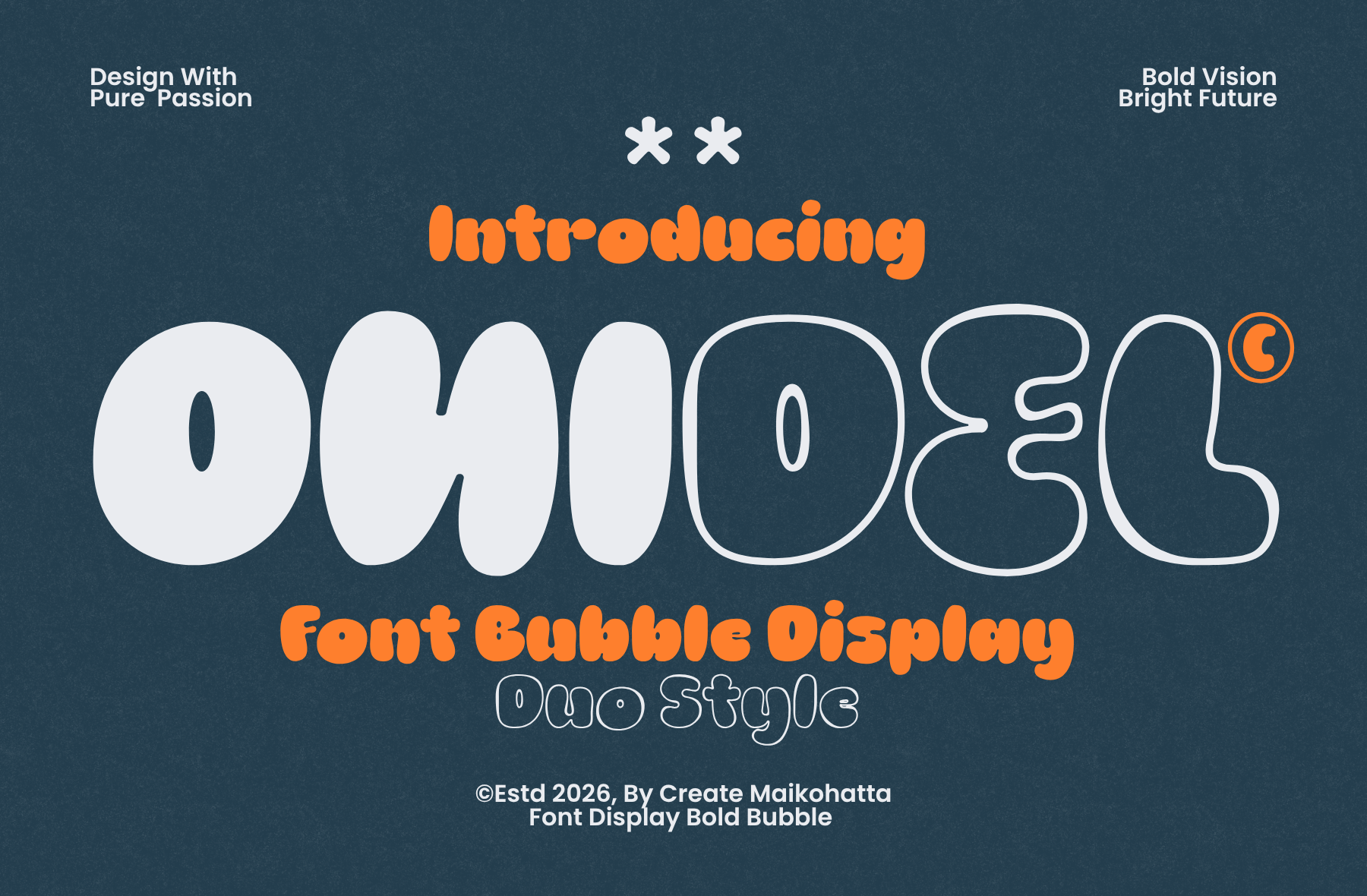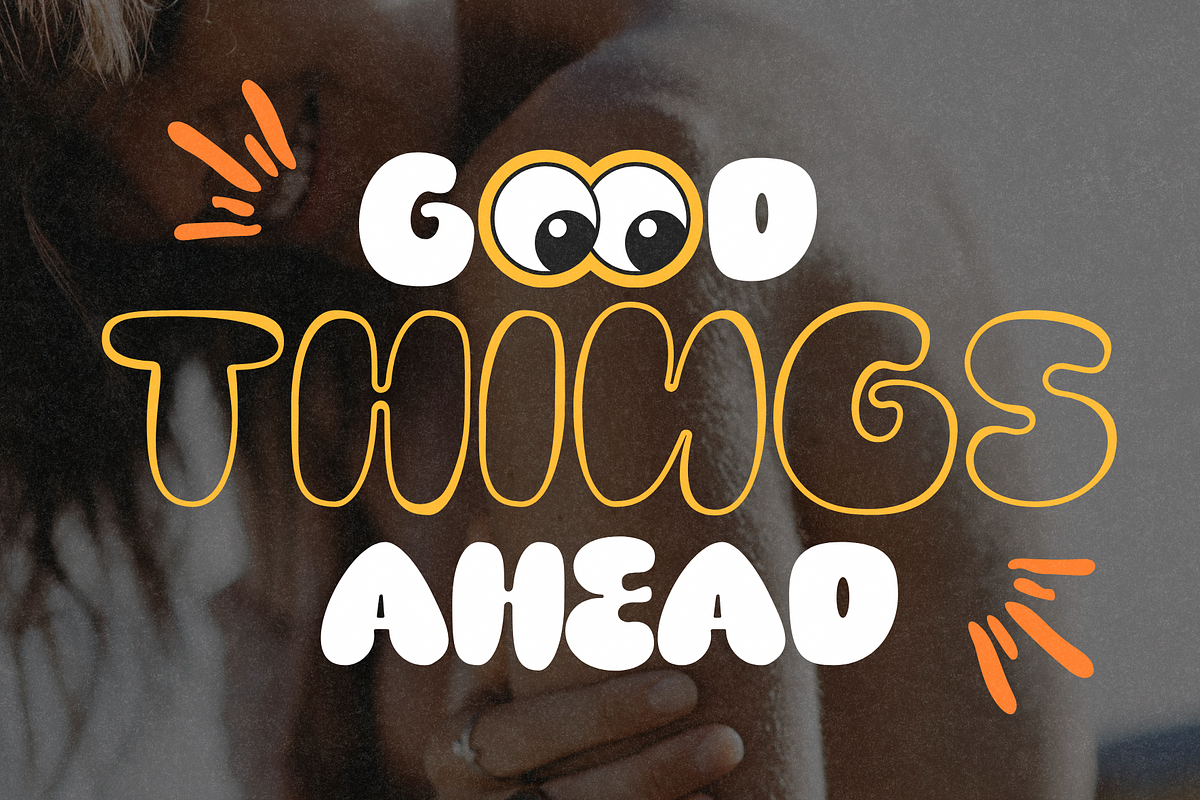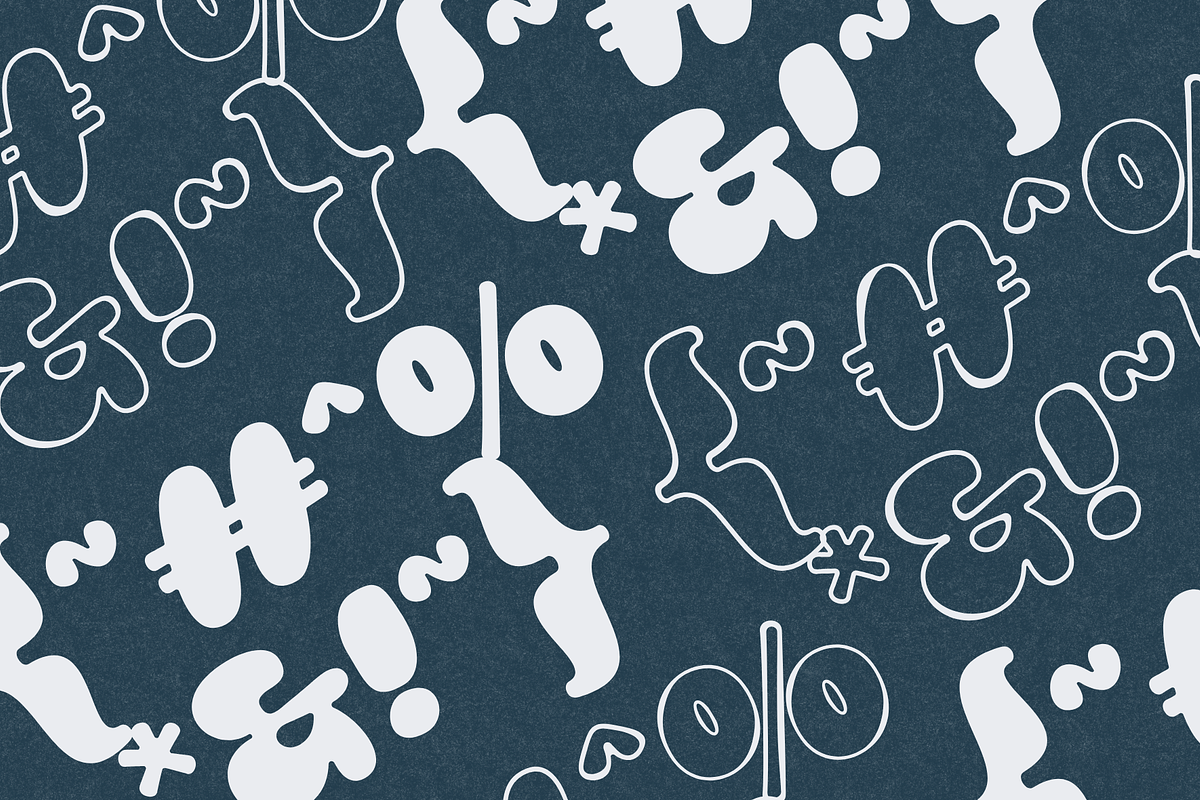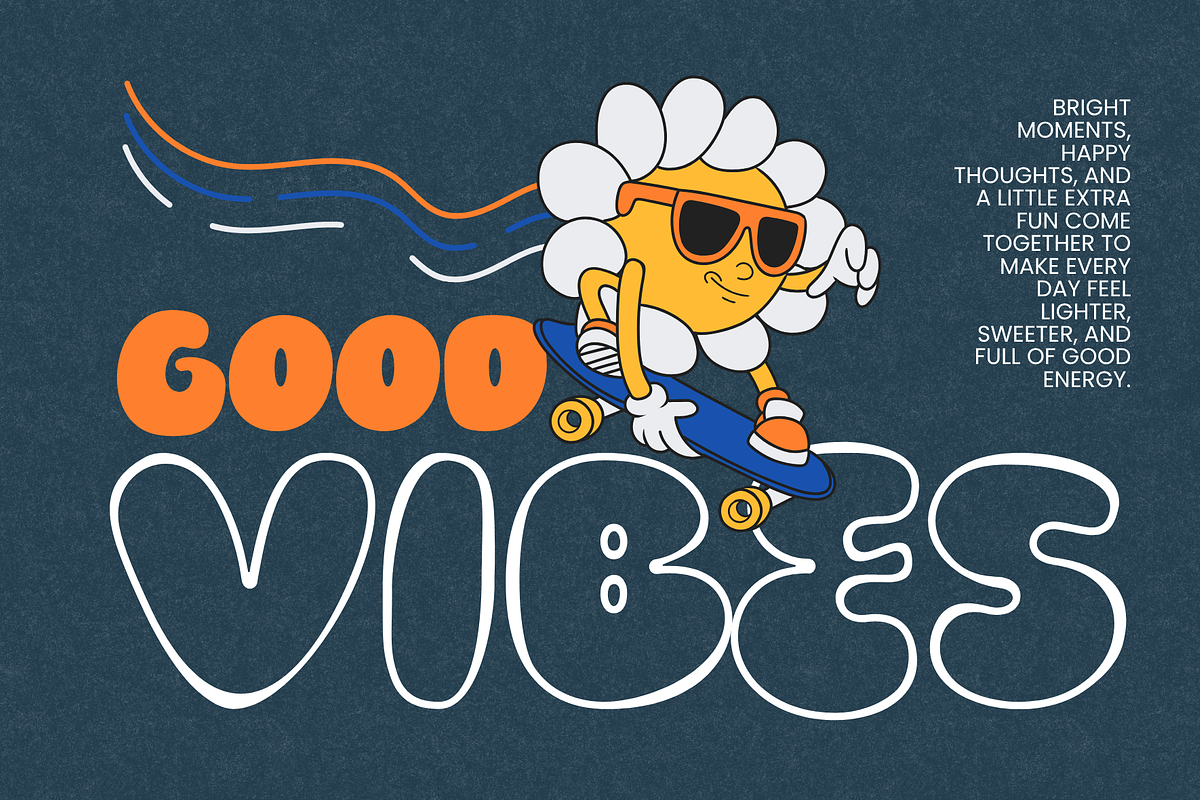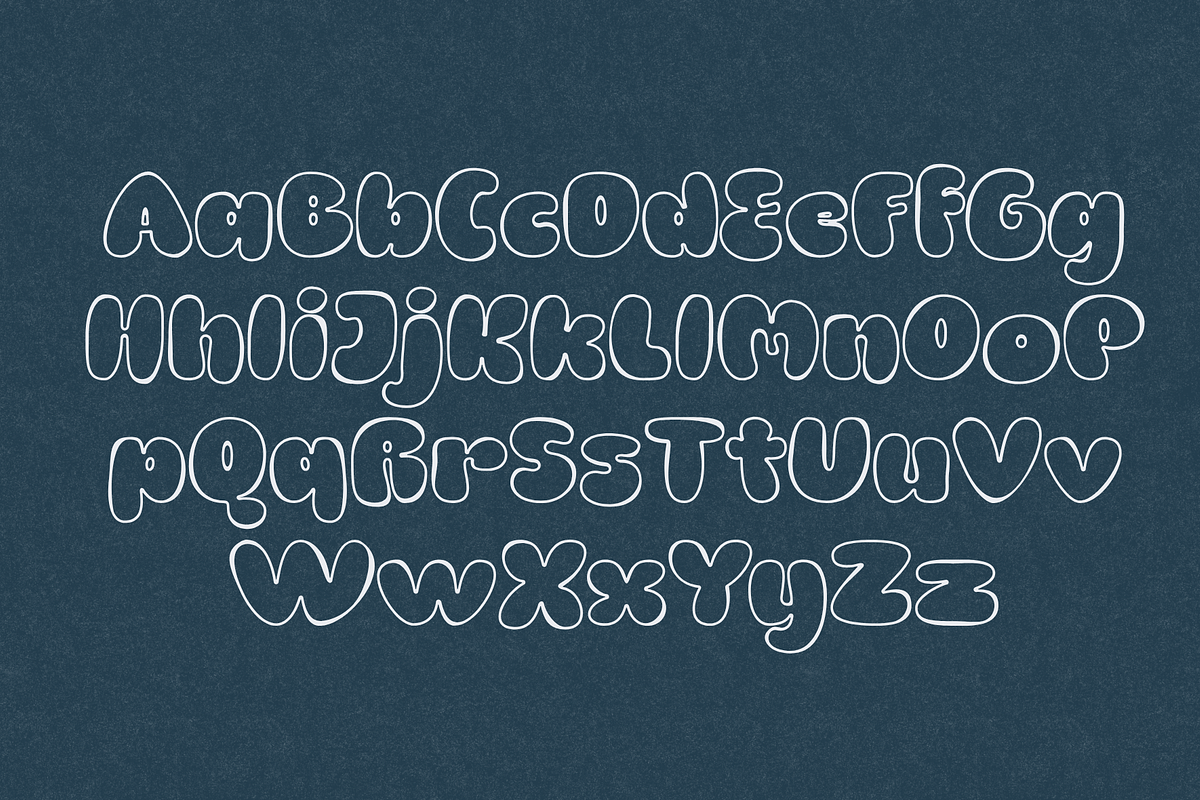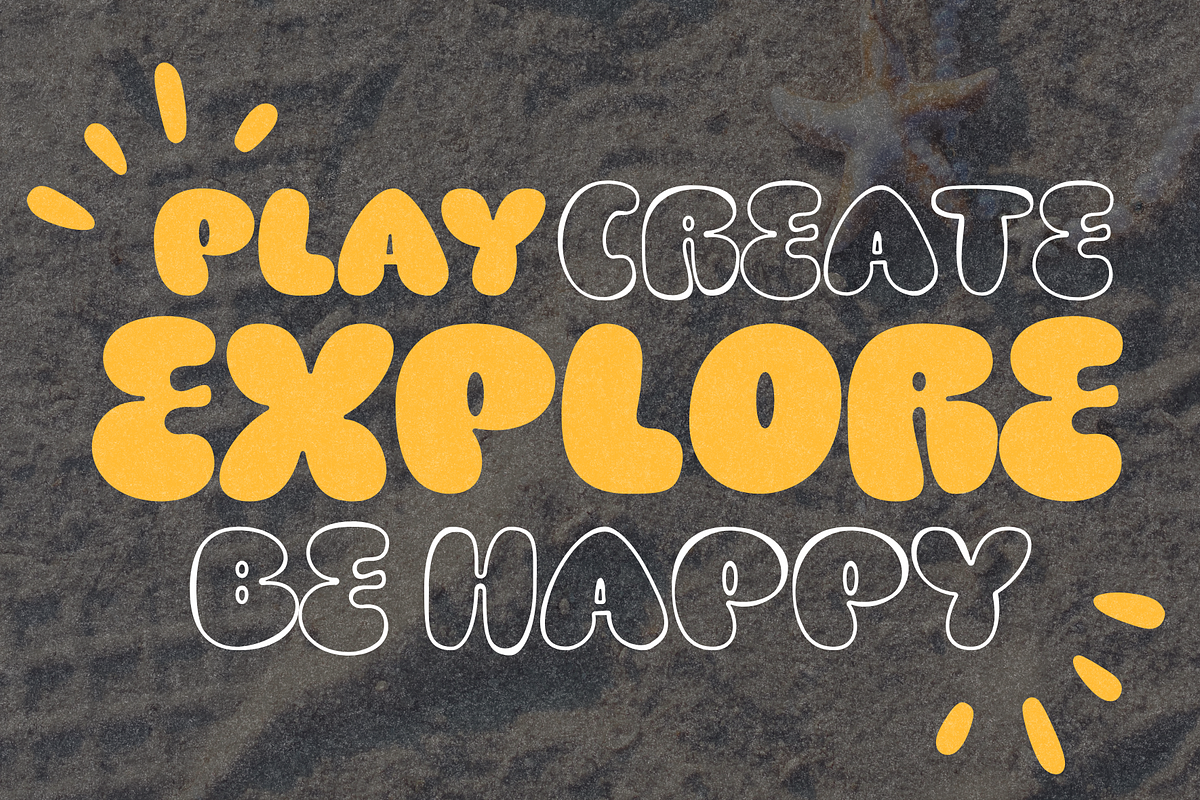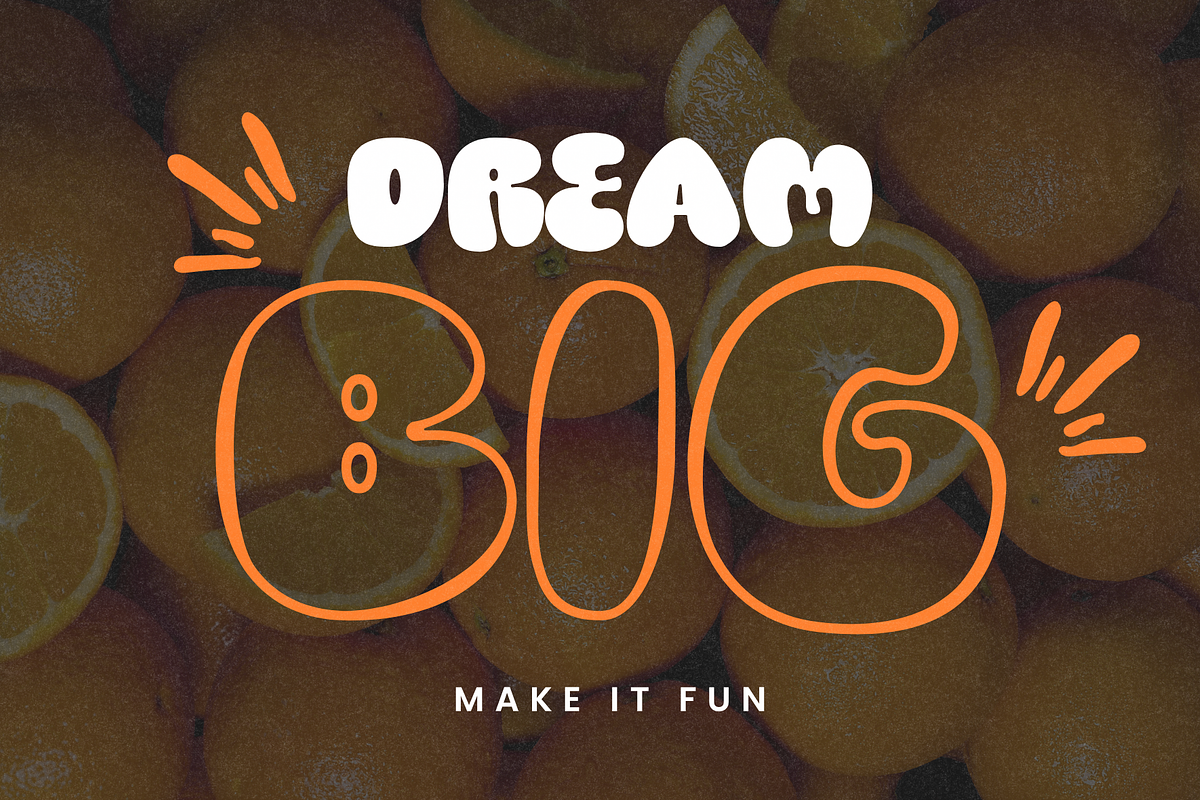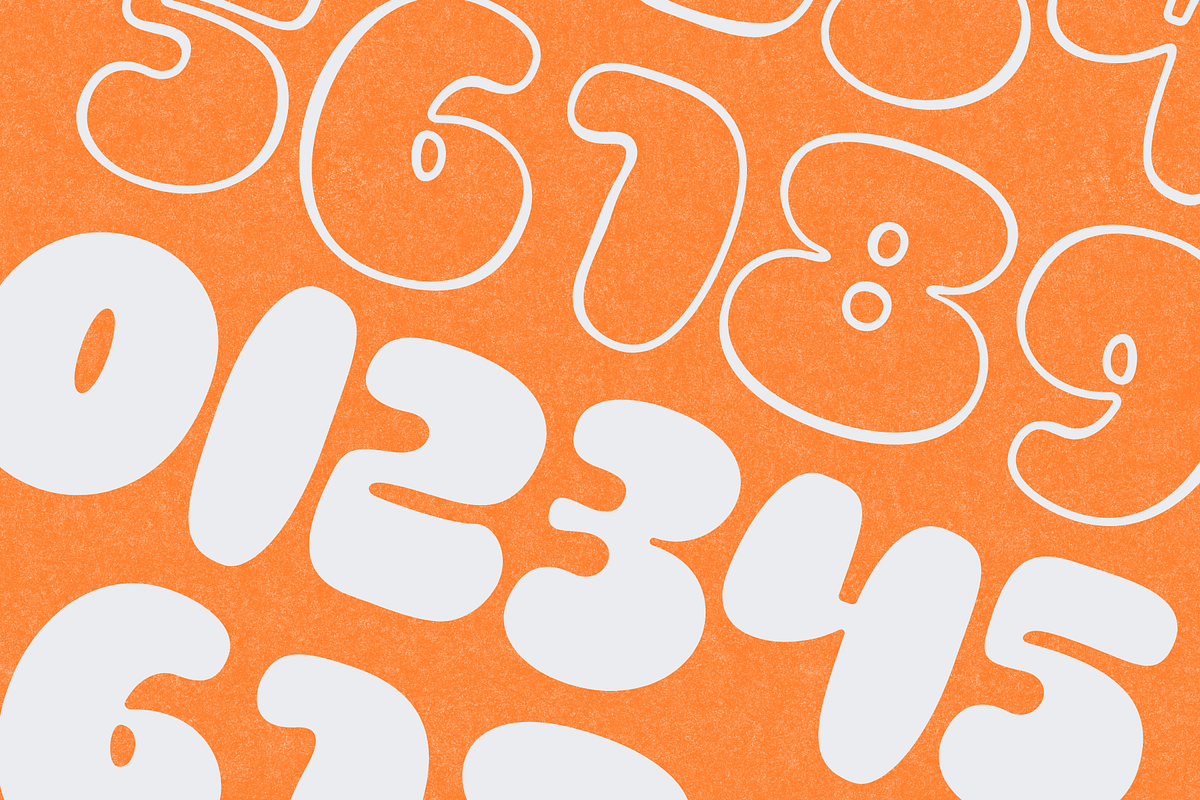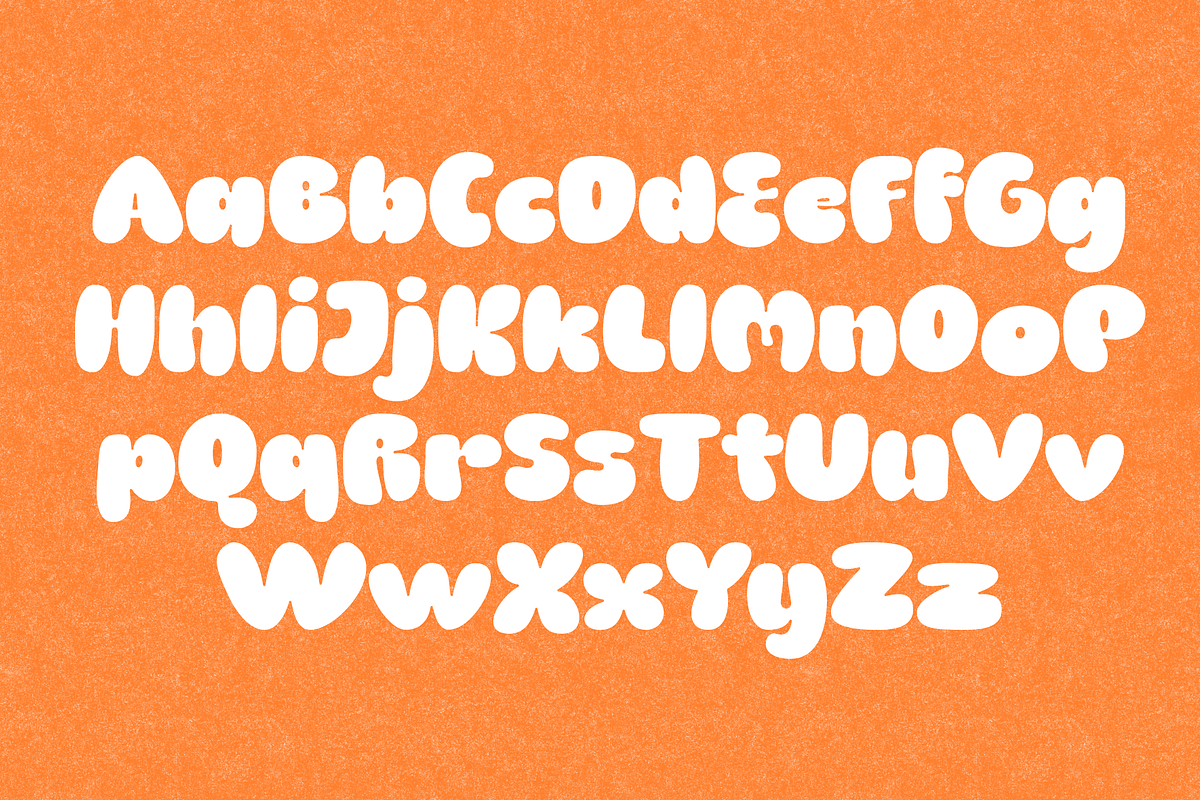
Onidel – Bold Bubble Display Font
Introducing our new product Onidel – Bold Bubble Display Font
Onidel is a bold and playful bubble display font designed to bring a fun, energetic, and creative personality to your designs. Featuring chunky rounded shapes, smooth curves, and a unique organic appearance, Owioel is perfect for eye-catching headlines and expressive visual projects. This font works beautifully for logos, branding, posters, packaging, stickers, social media graphics, kids' projects, invitations, and creative advertising. Its bold bubble style makes it especially suitable for retro, playful, youthful, and modern display designs.